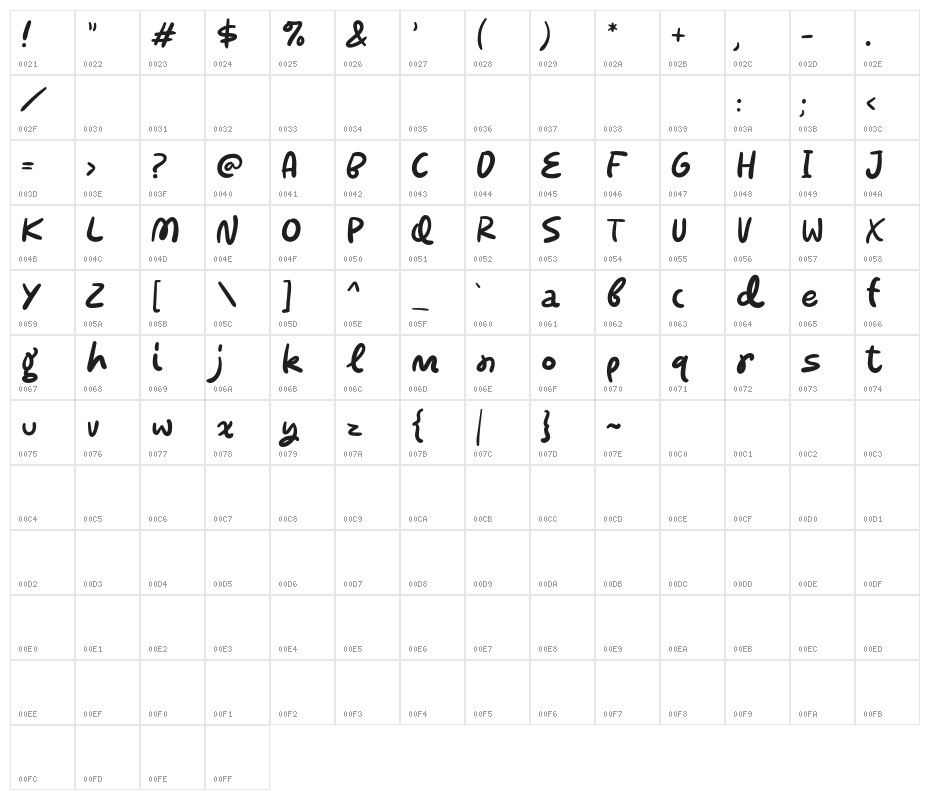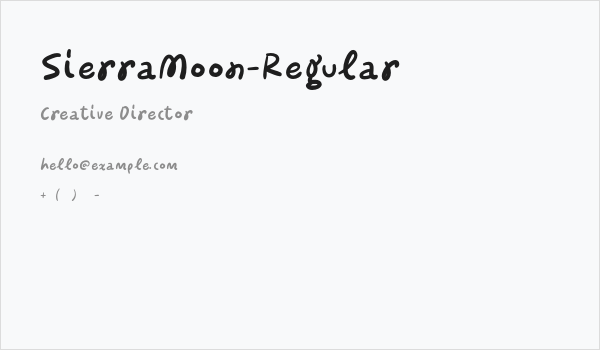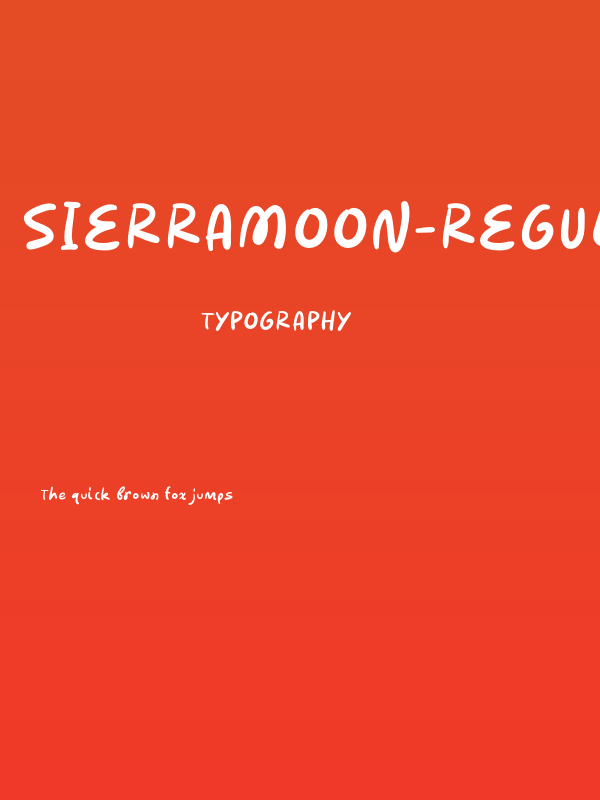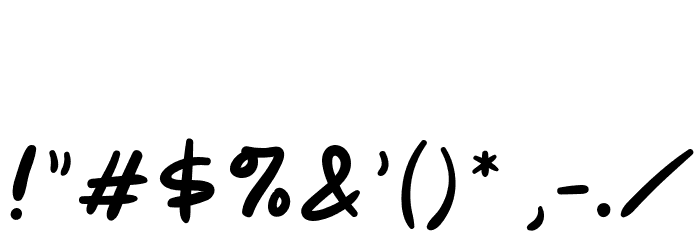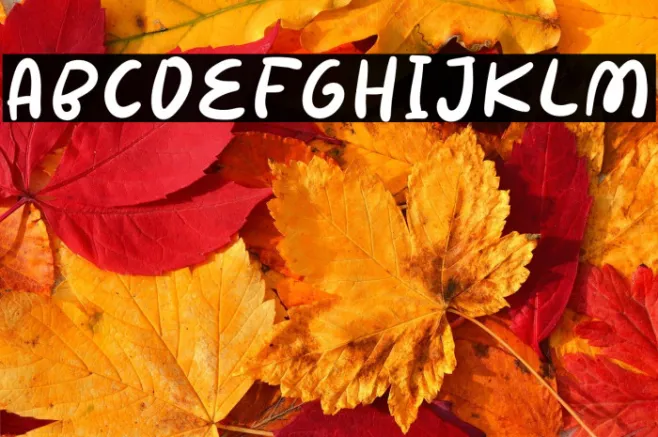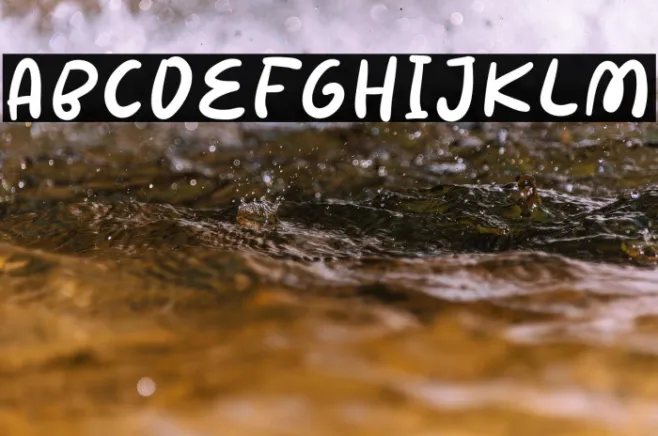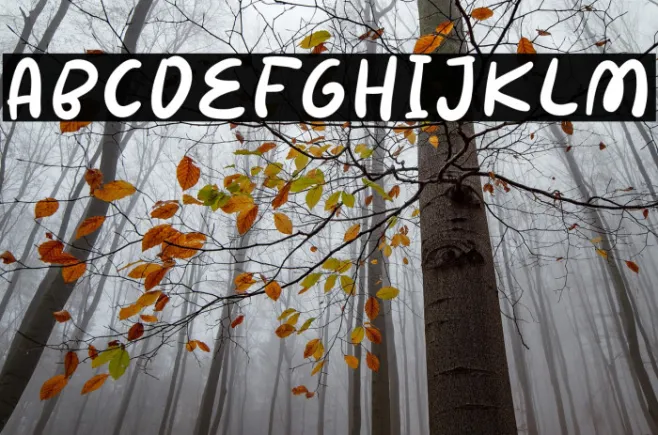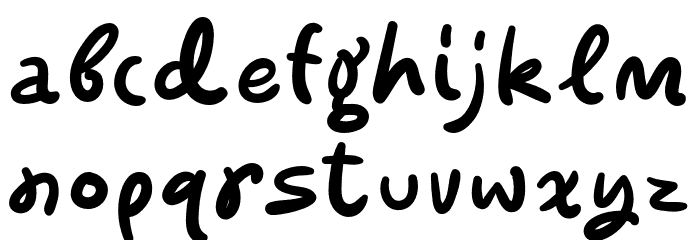
SierraMoon-Regular Font
SierraMoon-Regular Description
This font features a playful and informal handwritten style, characterized by its smooth, flowing curves and slightly irregular shapes. The letters have a casual, friendly appearance, with a moderate thickness that ensures readability while maintaining a relaxed aesthetic. The uppercase and lowercase letters are well-balanced, and the numerals and special characters complement the overall style. The font's organic feel makes it suitable for projects that require a personal touch or a creative, artistic vibe.
| Overall Style | Casual, Artistic |
| Proposed Projects | Ideal for greeting cards, invitations, personal branding, and creative projects that require a friendly, approachable look. |